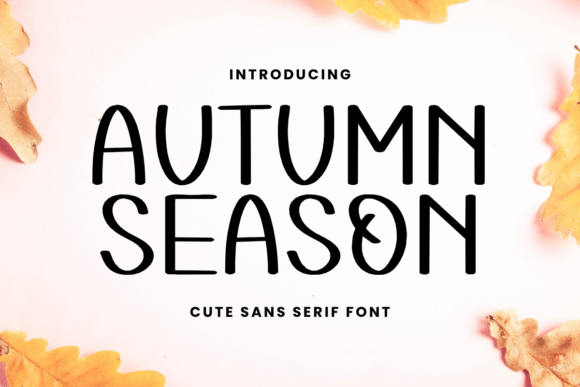
Embracing the Cozy Vibes of Autumn with the Perfect Font
As designers, crafters, and creative hobbyists, we’re always on the lookout for that one special font to elevate our projects. I still remember the time I was working on a fall-themed invitation for a friend’s wedding. The design was almost complete, but something was missing – a font that could capture the essence of autumn. That’s when I stumbled upon the Autumn Season Font. It was love at first sight! With its cool handwriting style and cute aesthetic natural vibes, it was exactly what I needed to bring the cozy feelings of fall to life.
A Personal Review of Autumn Season Font
- ✨ Cute and Playful Aesthetic: This font is perfect for adding a touch of whimsy to your designs. It’s handwriting-like style gives off a friendly and approachable vibe that’s hard to resist.
- ✅ Versatility: Whether you’re working on a project for a client or a personal craft, Autumn Season Font adapts seamlessly to various themes and styles.
- 💡 Easy to Read: Despite its playful nature, the font remains clear and easy to read, making it suitable for both headings and body text.
Of course, no font is perfect, and there are a few minor quirks to consider:
- 🤔 Limited Formality: Given its playful nature, Autumn Season Font might not be the best choice for very formal or corporate projects.
- ⚠️ Glyph Variety: While the font comes with a range of glyphs and stylistic alternates, it might not have everything you need for highly specialized projects.
The Story Behind Autumn Season Font
While the origins of Autumn Season Font are shrouded in mystery, it’s easy to imagine a designer sitting by a cozy fireplace, surrounded by fall leaves and warm lighting, crafting a font that embodies the spirit of the season. The result is a font that feels both personal and inviting, perfect for a wide range of creative projects.
| Font Name | Autumn Season Font |
| Author | Letterayu |
| Does Autumn Season Font come with a wide range of glyphs? | Yes, Autumn Season Font includes a variety of glyphs and stylistic alternates, allowing you to customize your text and add more personality to your designs. |
| Is Autumn Season Font easy to read? | Despite its playful nature, Autumn Season Font is designed to be clear and easy to read, making it suitable for both headings and body text. |
In conclusion, Autumn Season Font is a versatile and charming addition to any designer’s toolkit. Its unique blend of playfulness and readability makes it perfect for a wide range of projects, from crafting and scrapbooking to professional branding and marketing materials. So why not give it a try and see how it can bring a touch of autumn magic to your creations?